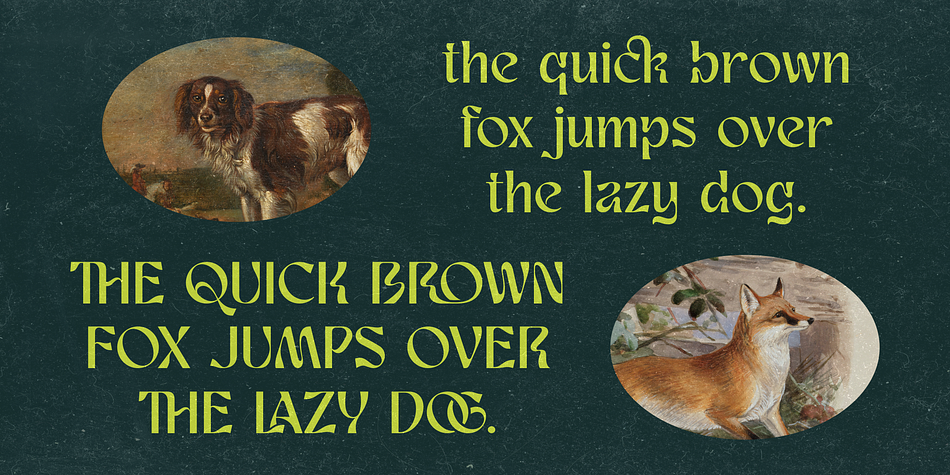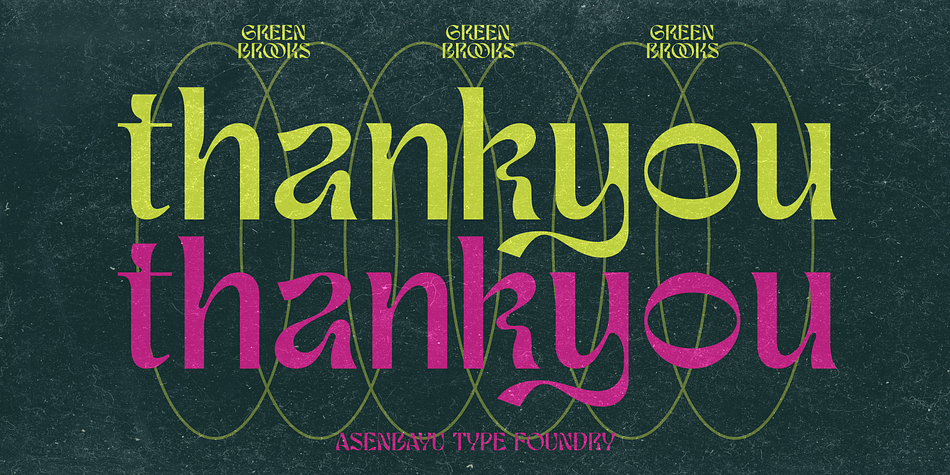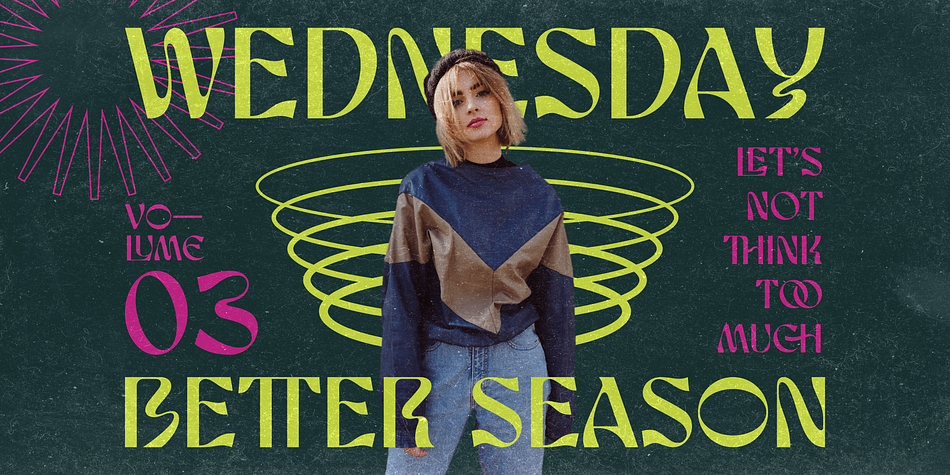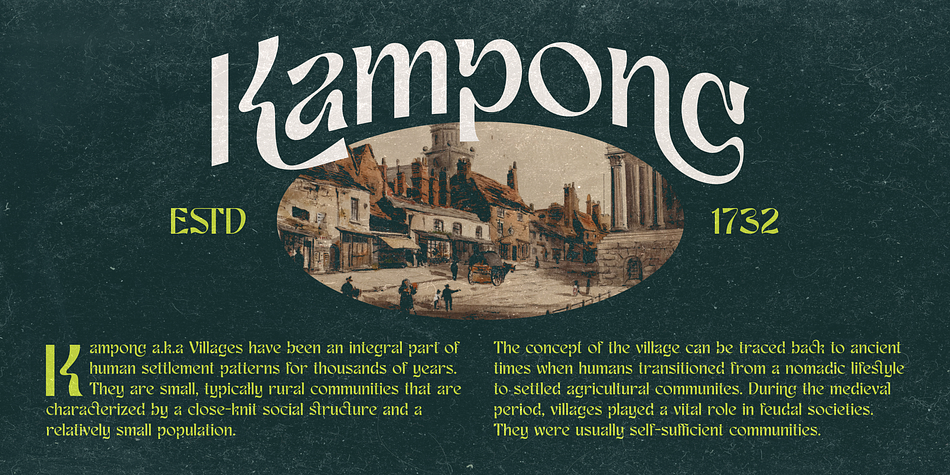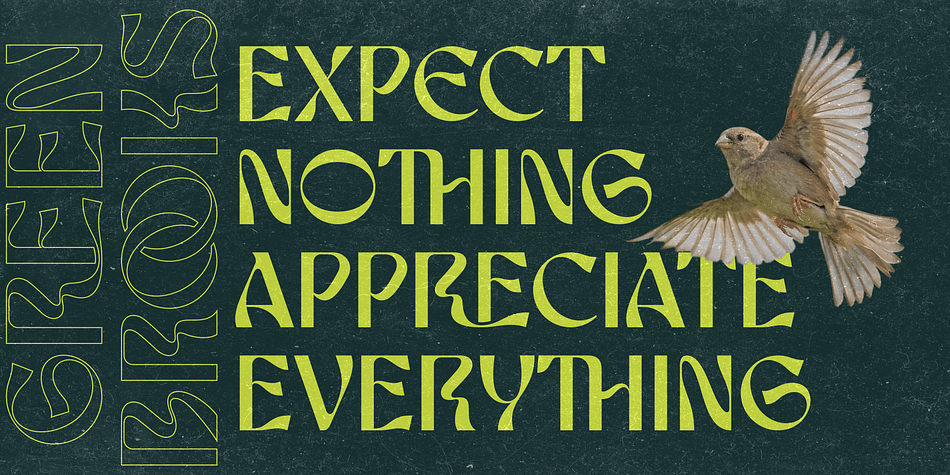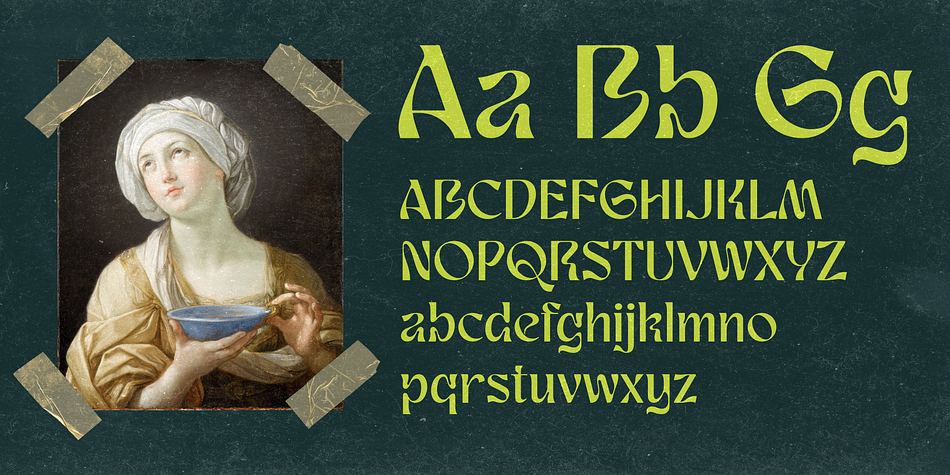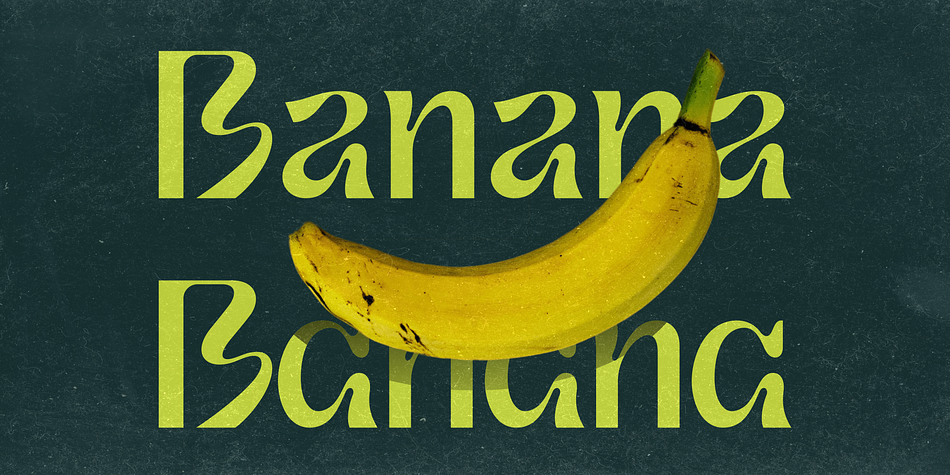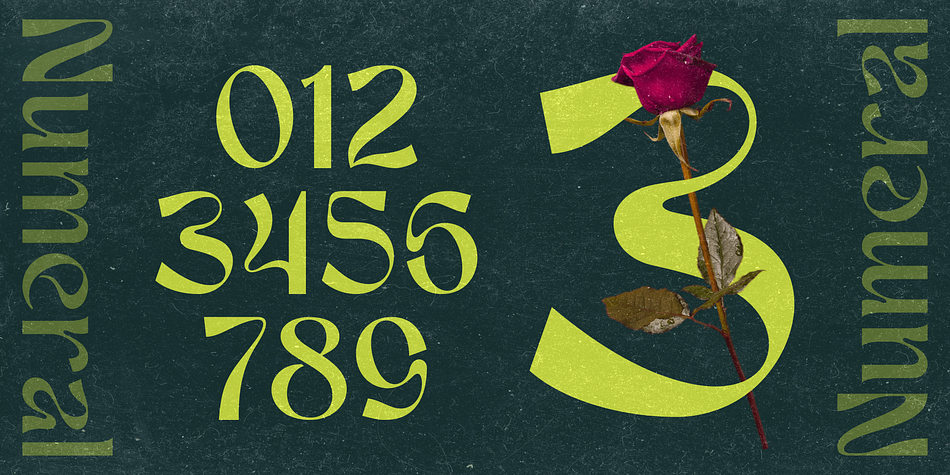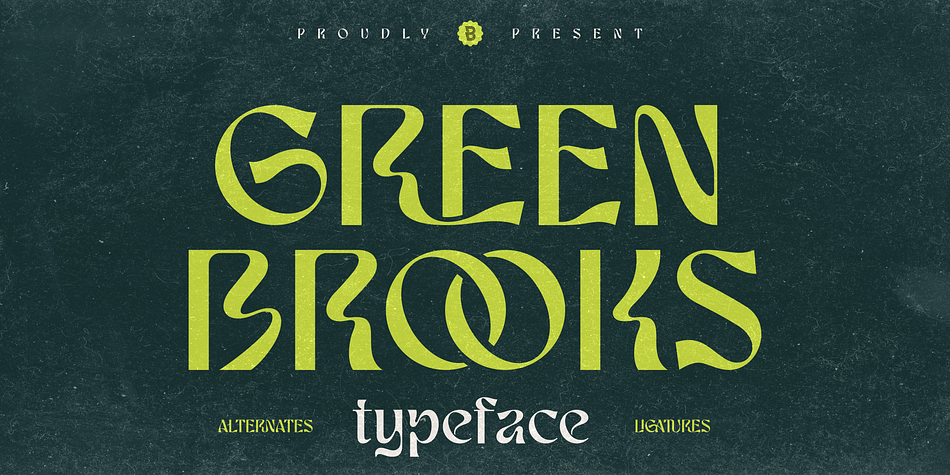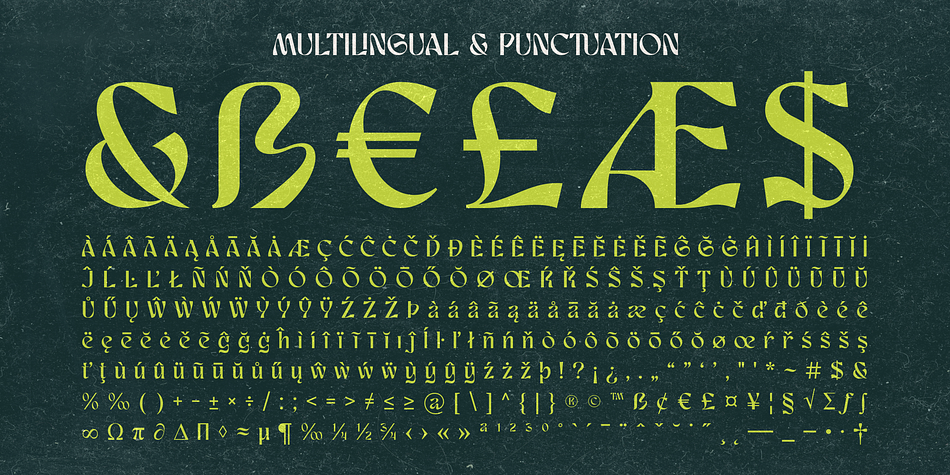
Green Brooks
Green Brooks is a retro font family published by Asenbayu.
Green Brooks is a semi serif decorative display font. A mix of abstract and curves inspired by flowing rivers in nature, this font has beautiful flowing shapes. This font also has a modern feel with a sans serif outline. You can use this font in both modern and vintage designs. This font is suitable for attractive packaging label designs, unique desired logos, poster designs, fashion and many more.
Green Brooks font features:
- Stylistic alternates,
- Stylistic ligatures,